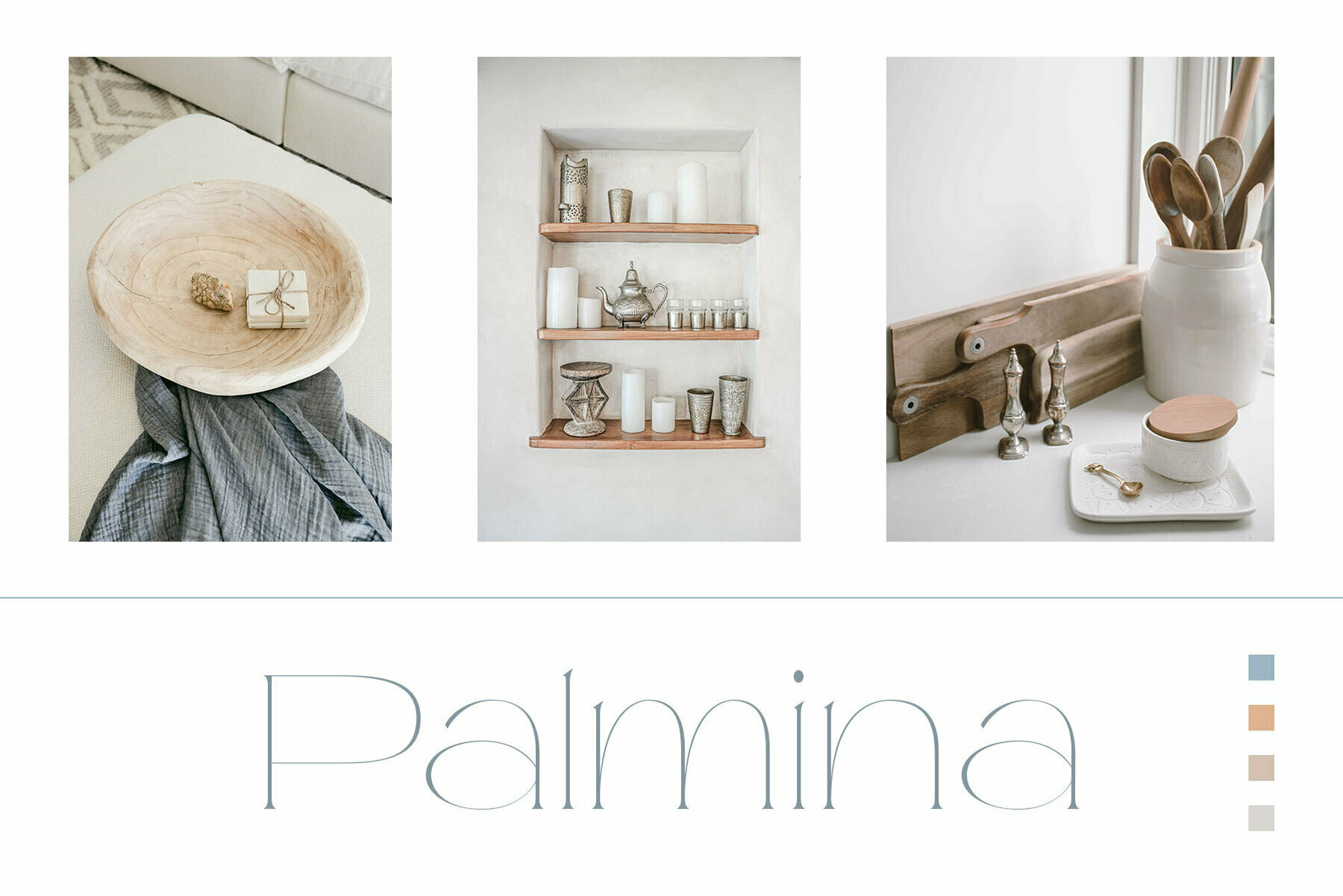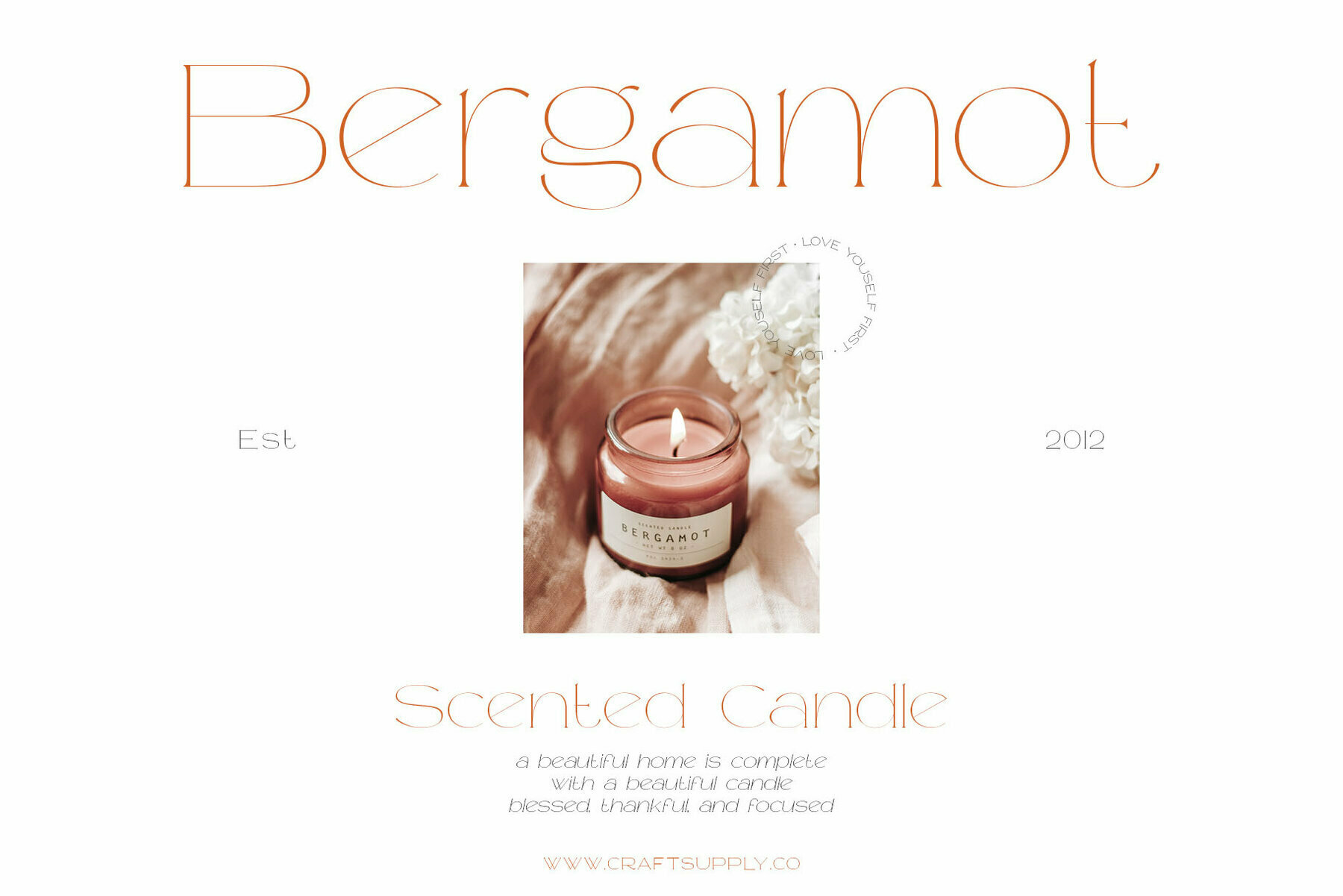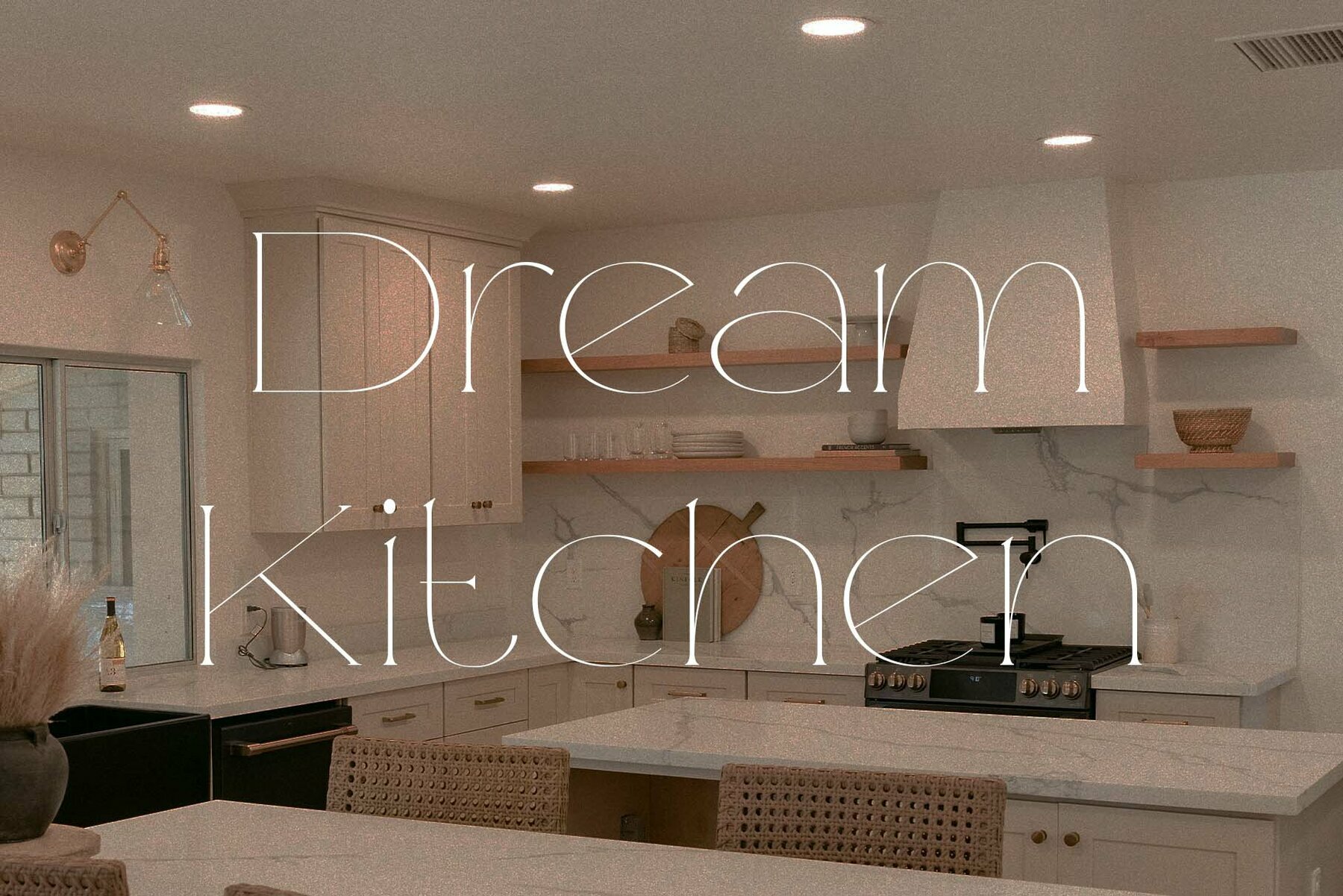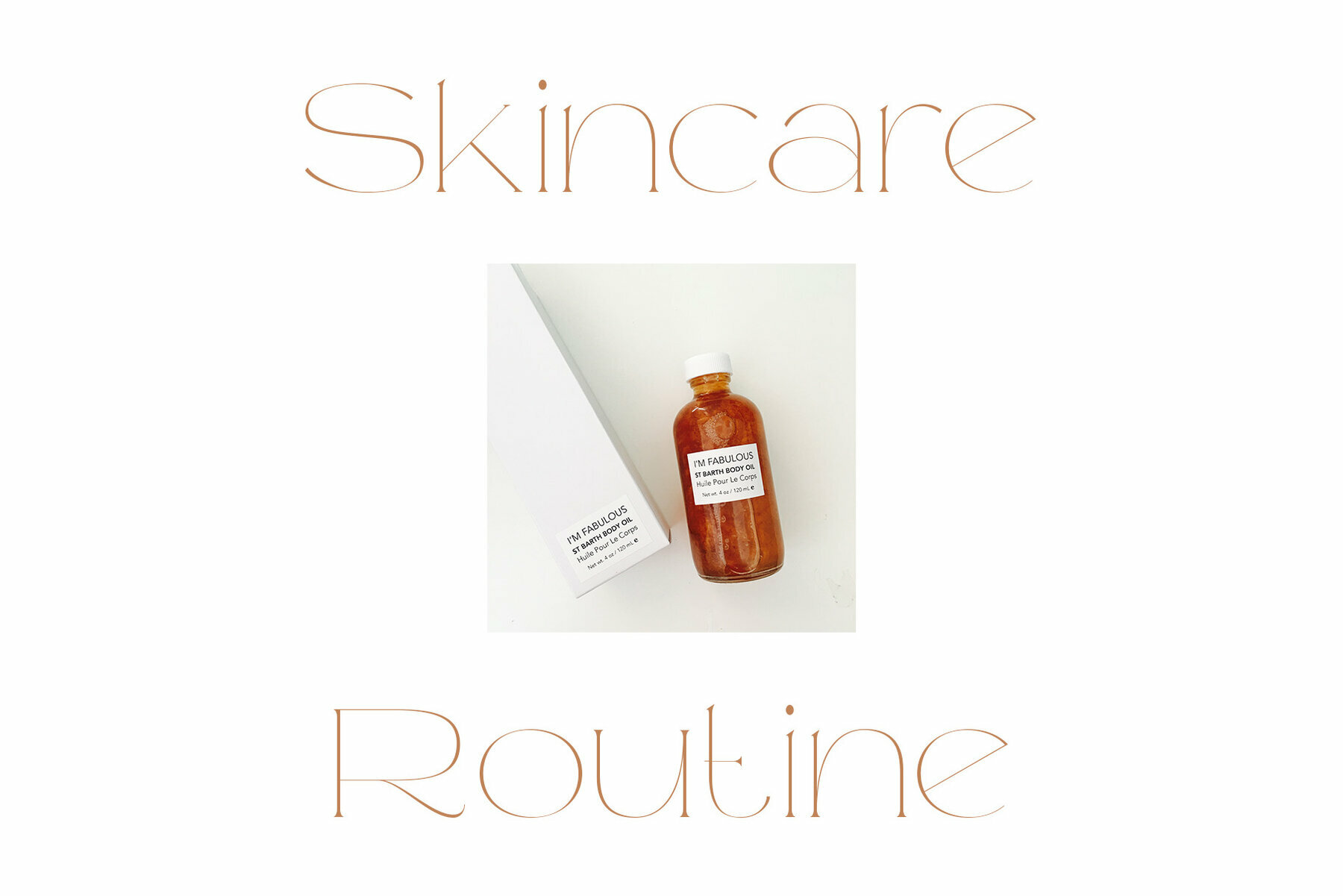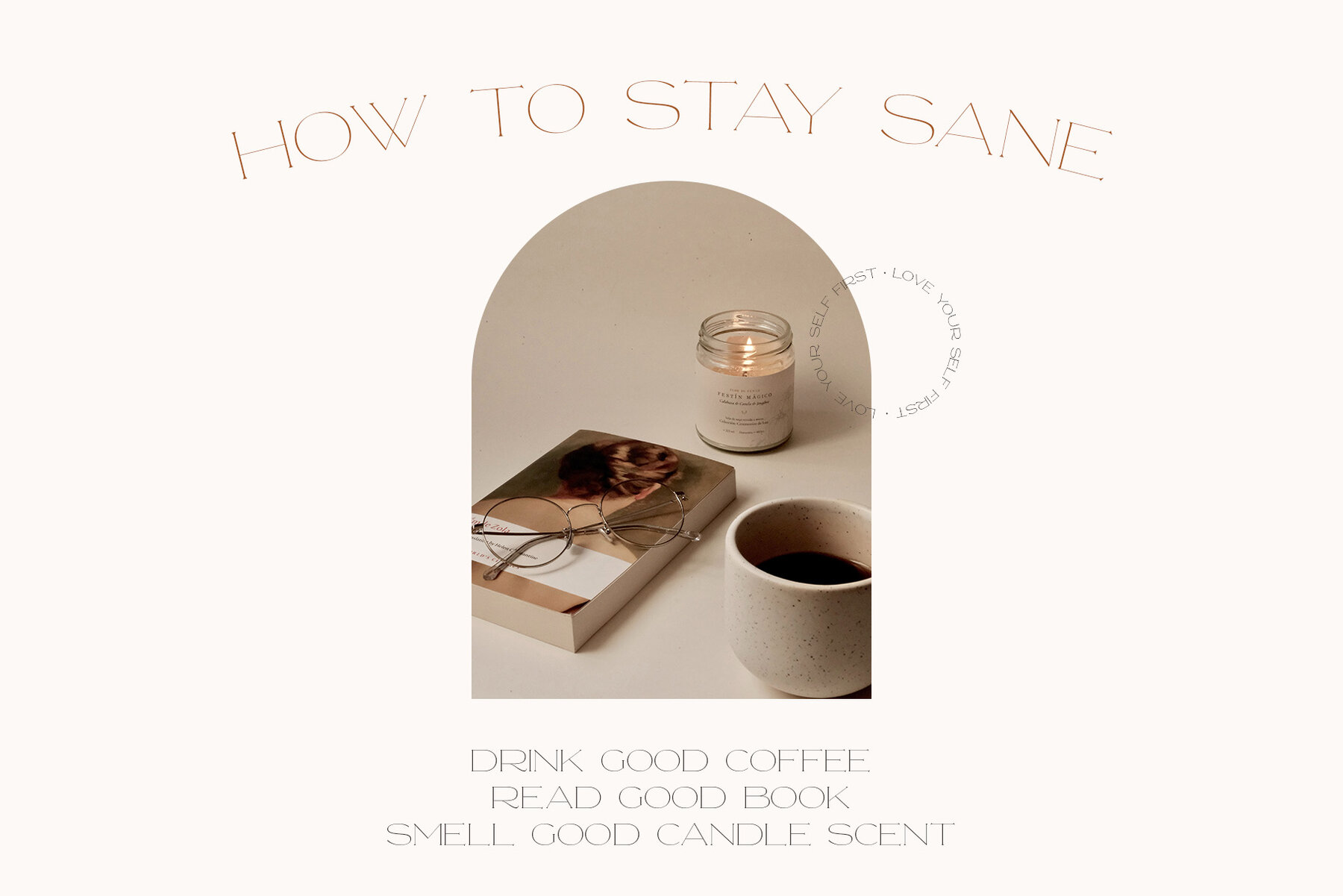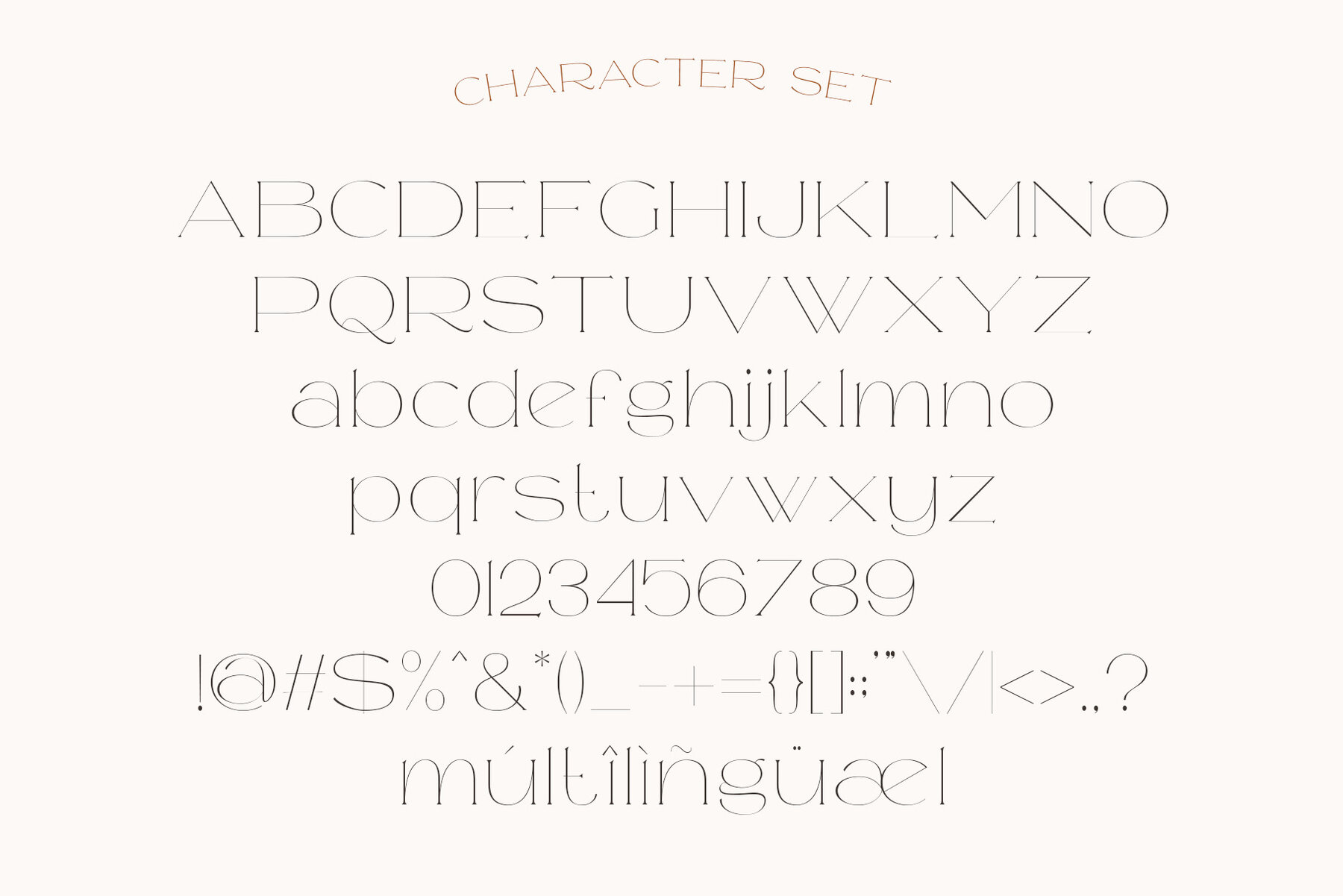
Mileur Font
Mileur, designed by Craft Supply Co., offers a sophisticated touch with its modern serif styling. This font emphasizes thin strokes and low-contrast modulation, accentuated by small serifs that lend elegance and class. Ideal for a wide range of design projects, Mileur's versatility shines in print materials, enhancing their aesthetic appeal. From greeting cards to packaging designs, brand identities to craft projects, Mileur transforms any venture with a hint of modern sophistication. Whether your project demands a chic wedding font or a stylishly retro design, this typeface handles it all with grace and versatility. Tap into its wide range of applications to elevate your artistic works. Features:Mileur: Modern Serif for Every Occasion